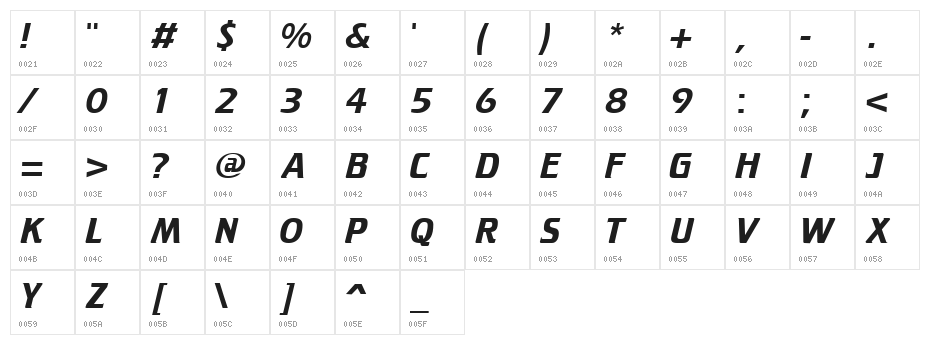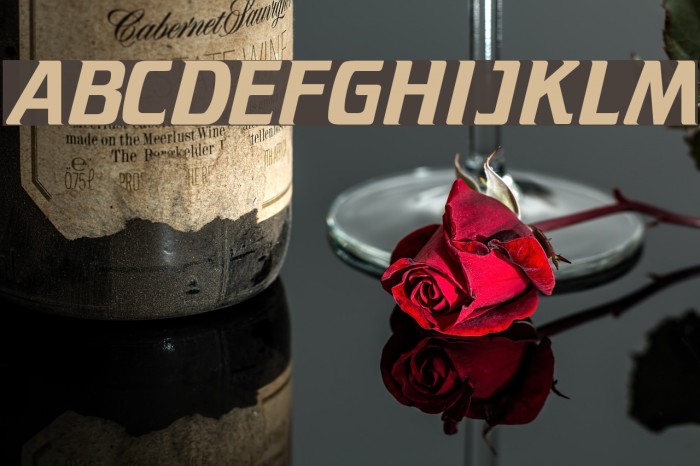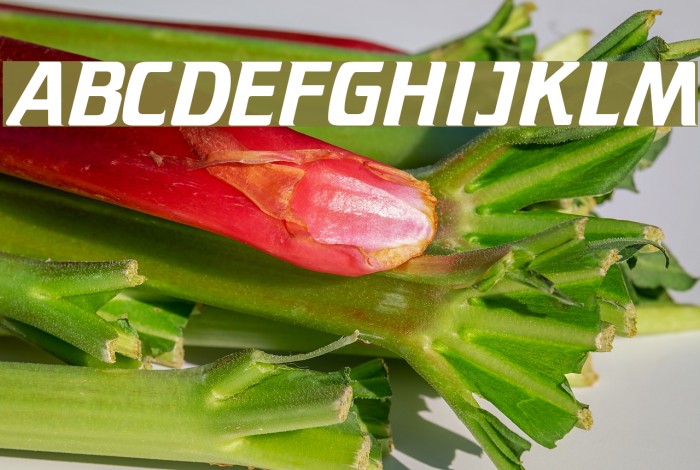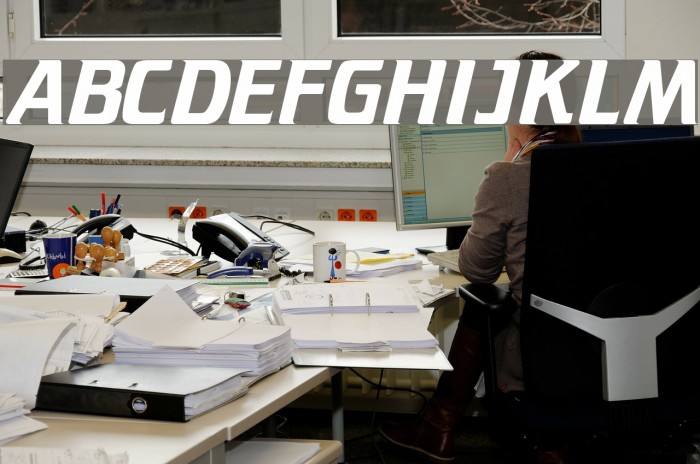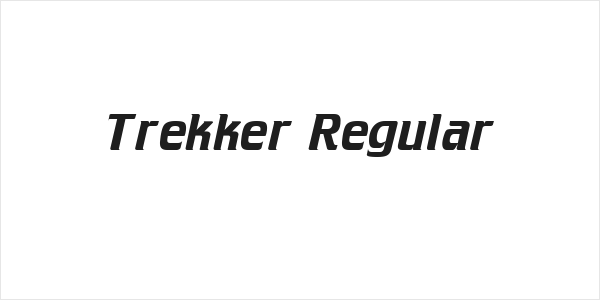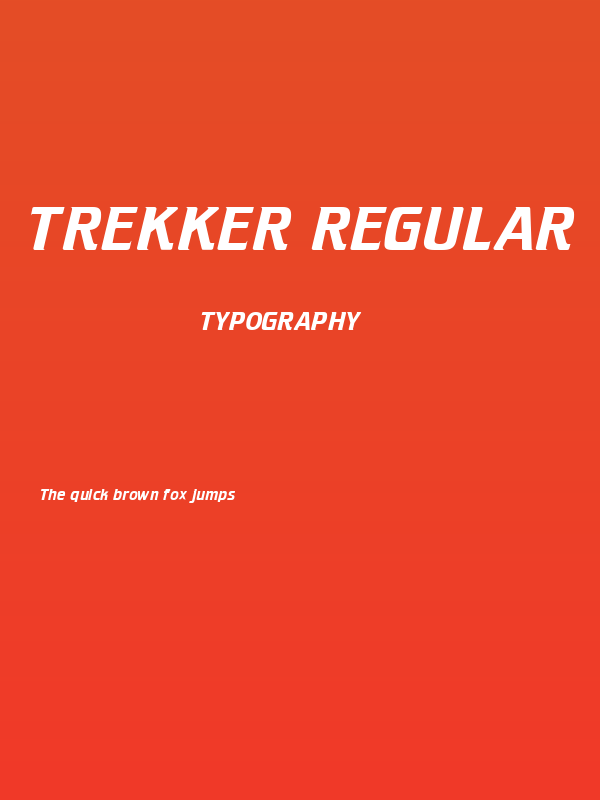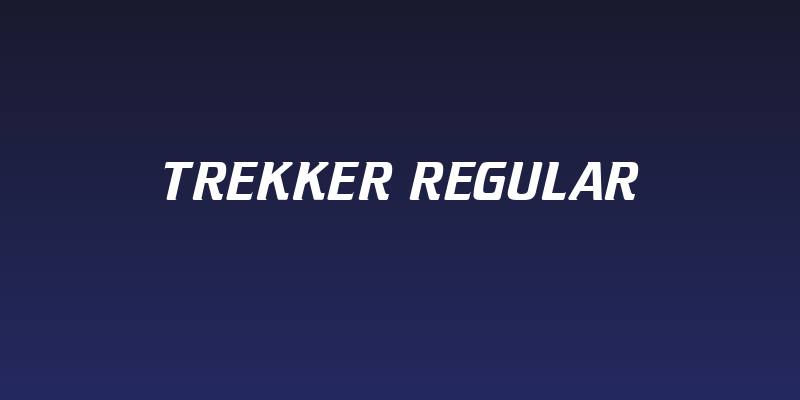
Trekker Regular Font
Trekker Regular Description
This font features a modern and sleek design with a slightly italicized slant, giving it a dynamic and forward-moving appearance. The characters are bold and well-defined, with a consistent stroke width that provides a uniform look across all letters and numbers. The uppercase and lowercase letters maintain a harmonious balance, while the numerals are clear and easily distinguishable. Special characters are included, offering versatility for various design needs. The overall style is contemporary, making it suitable for a wide range of applications.
| Use Case | Headlines, Logos, Digital Media |
| Proposed Projects | Ideal for branding, advertising, and digital media projects that require a modern and dynamic look. |